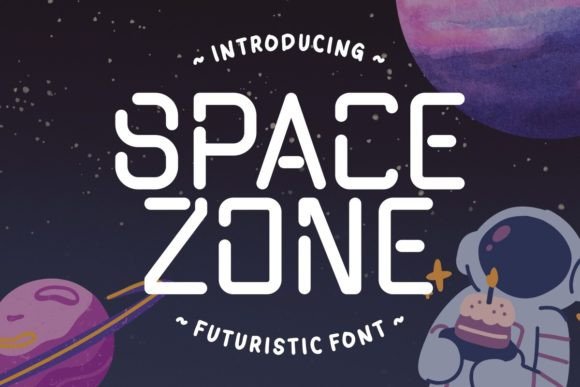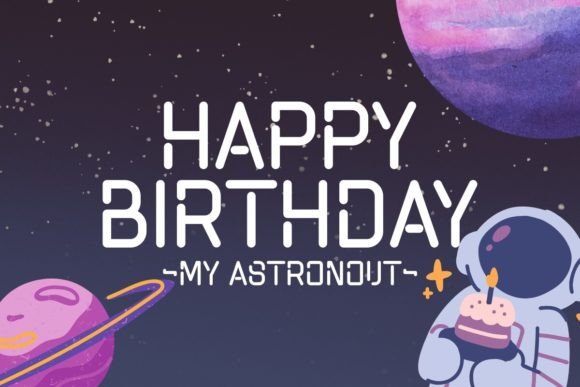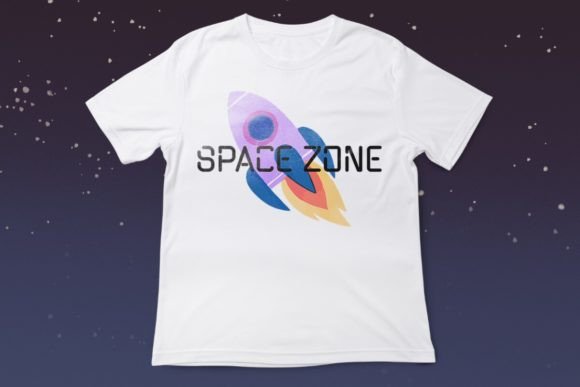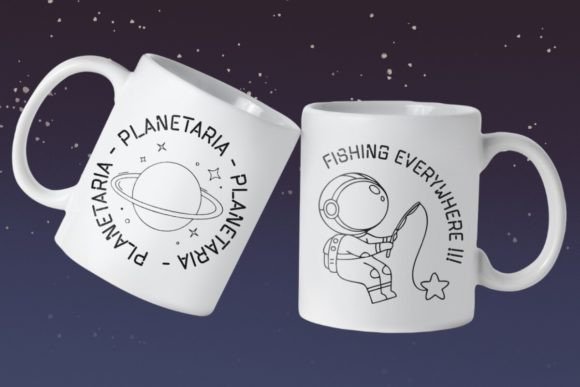
Space Zone Font: A Modern Display Font for Sci-Fi Posters & Branding
About the Space Zone Font
The Space Zone Font offers a perfect balance of form and function for your design needs. Introducing ‘Space Zone’, our futuristic and modern display font inspired by the mysteries of outer space. ‘Space Zone’ brings a touch of cosmic elegance to your creations, making it perfect for interstellar branding, sci-fi posters, and other designs that aim to evoke the spirit of the future. Elevate your designs to new heights with ‘Space Zone’ and let your creativity reach for the stars.
Space Zone Font Usage Examples
Space Zone Font Example